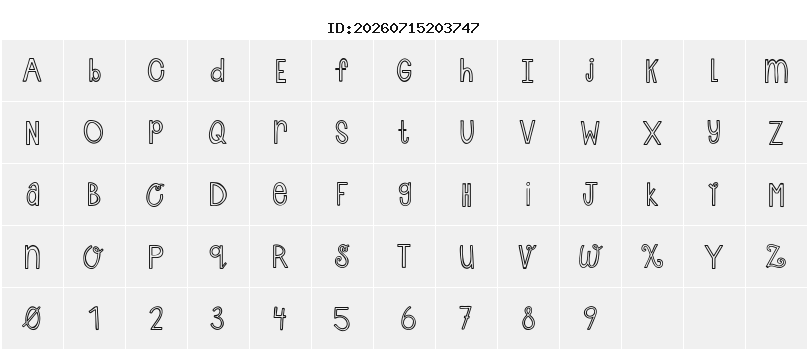
• Font Name: Austie Bost Cherry Cola
• Designer: Austin Owens
About Austie Bost Cherry Cola.ttf
Austie Bost Cherry Cola.ttf is a modern, elegant sans-serif font designed for ultimate readability and visual harmony. Perfect for branding, headlines, web design, and print materials.